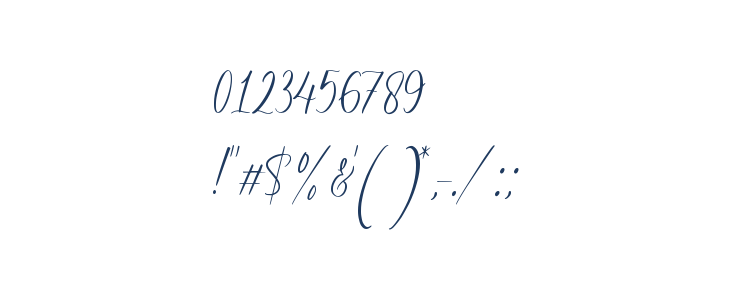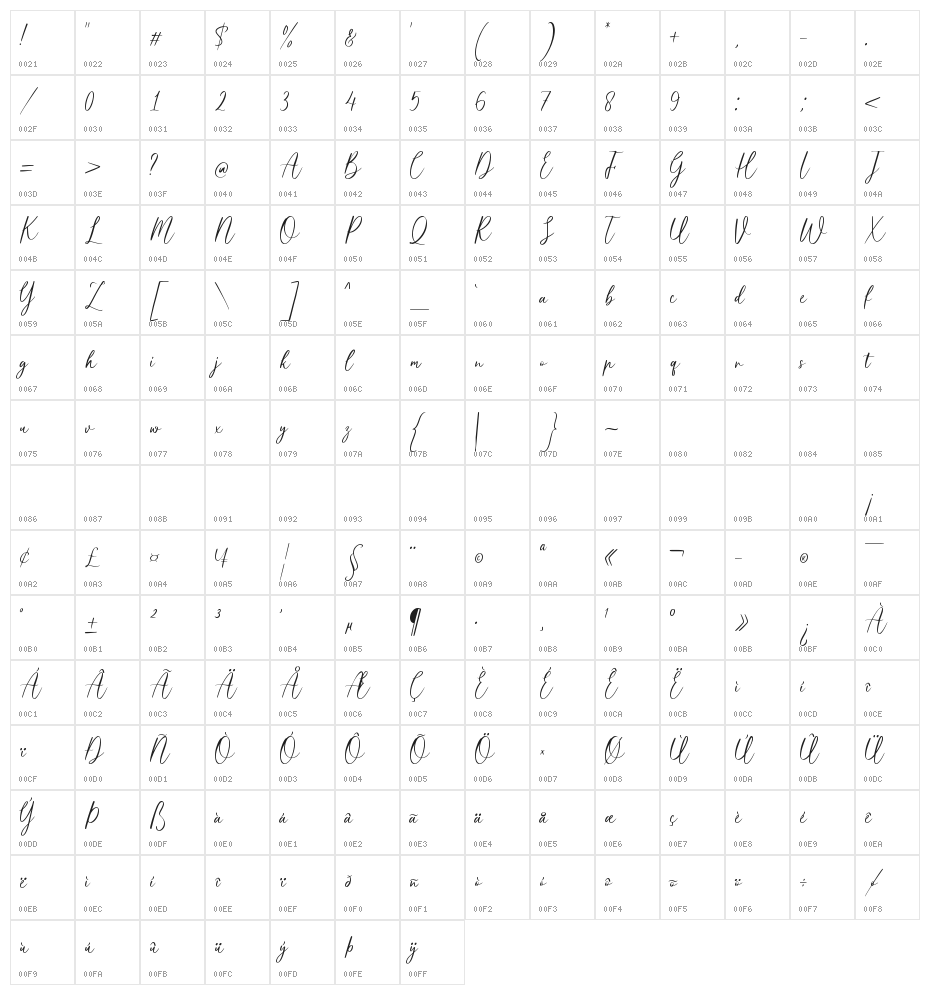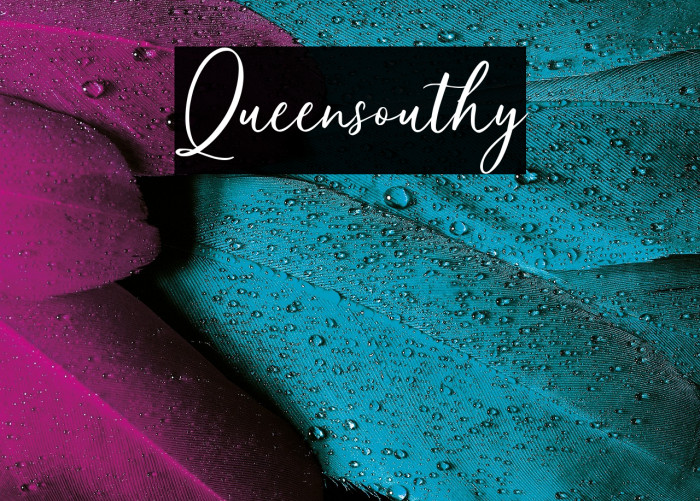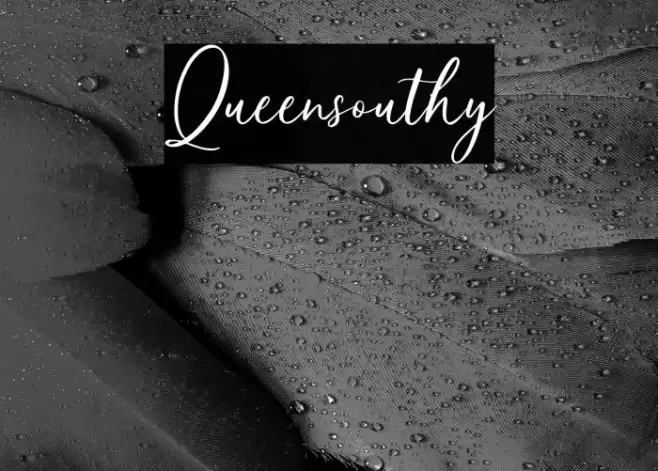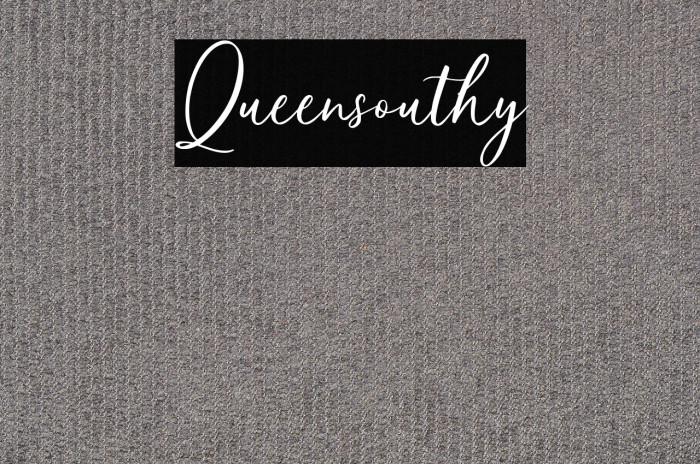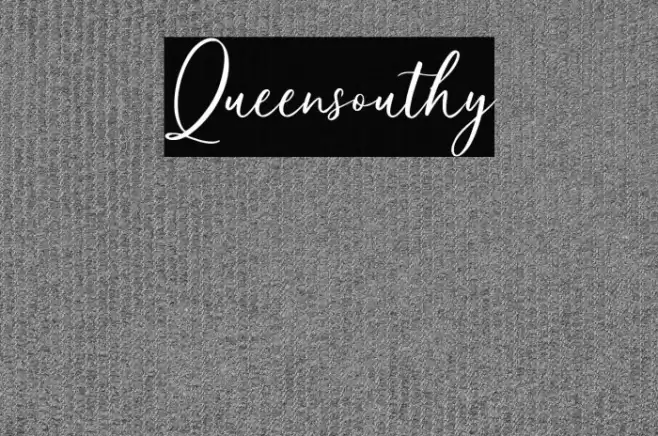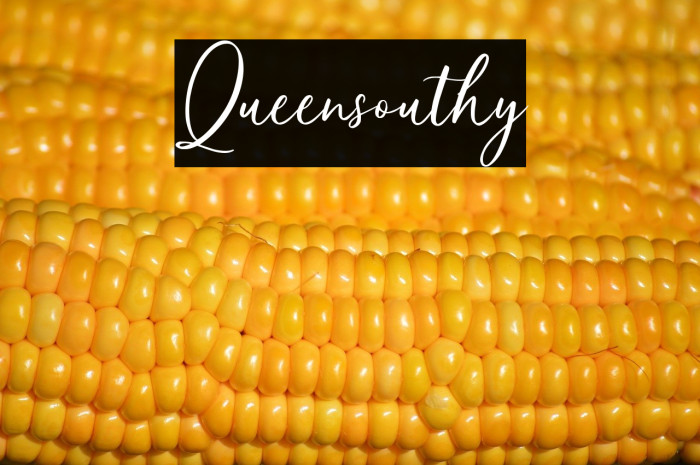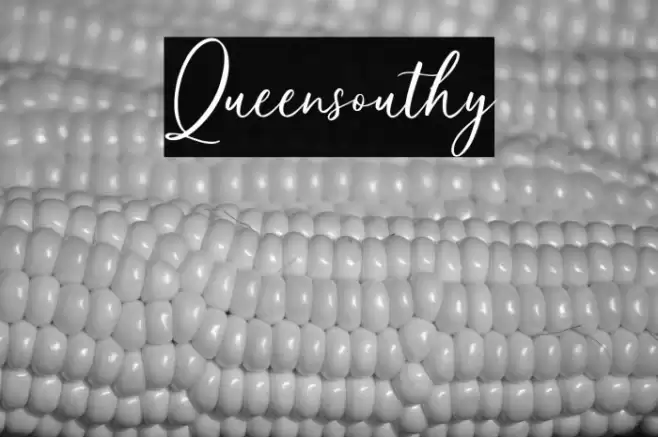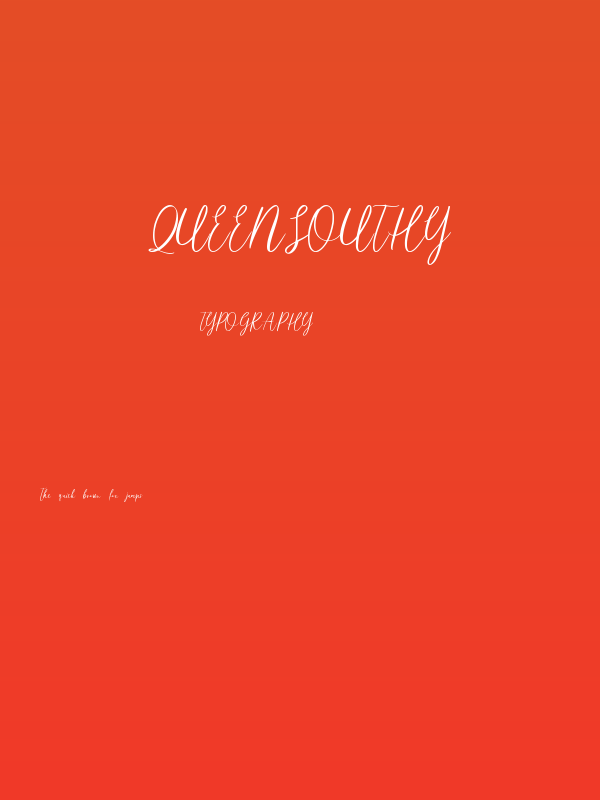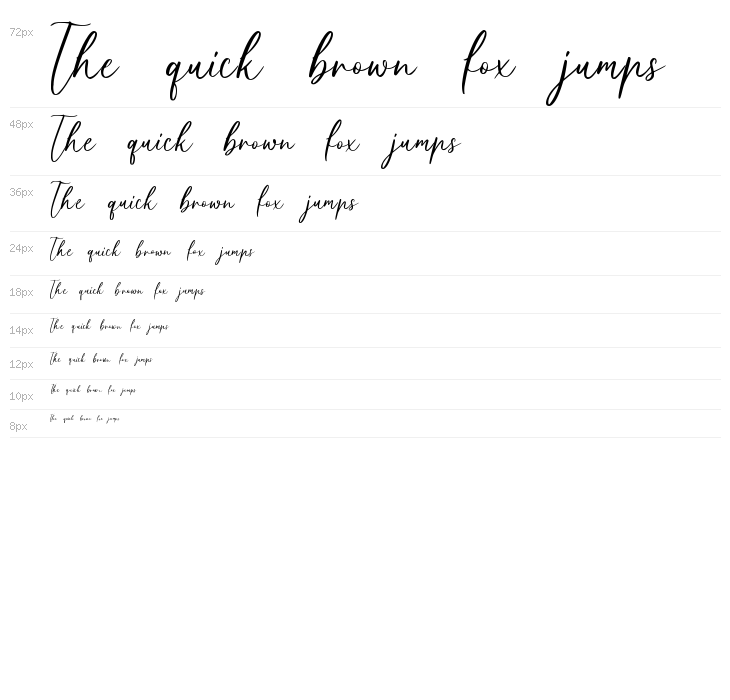
Queensouthy Font
Queensouthy Description
This font exhibits a flowing, elegant script style that captures a sense of sophistication and grace. The characters are connected with smooth, fluid strokes, giving it a handwritten appearance. The uppercase letters are tall and slender, with a slight slant that adds to the dynamic feel. Lowercase letters maintain a consistent style, with loops and curves that enhance the overall aesthetic. Numerals are clear and legible, maintaining the same elegant style. Special characters are designed to complement the script, ensuring a cohesive look across all text elements. This font is ideal for projects that require a touch of elegance and personal flair.